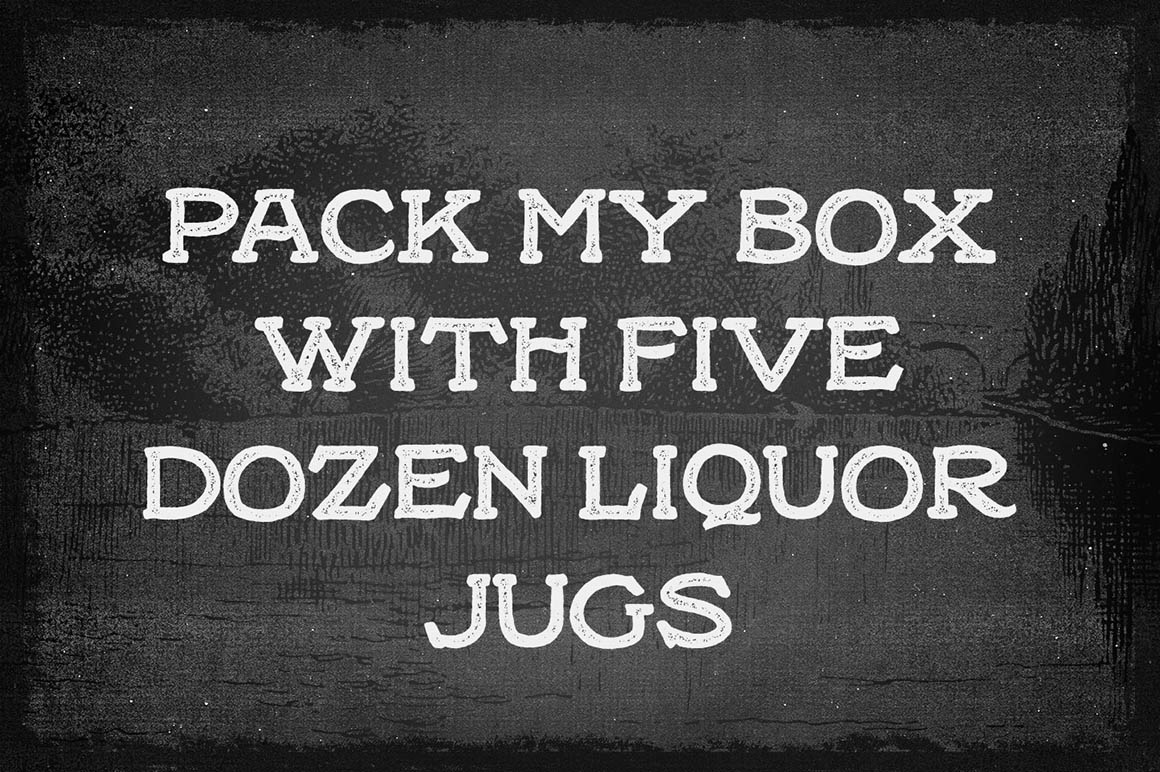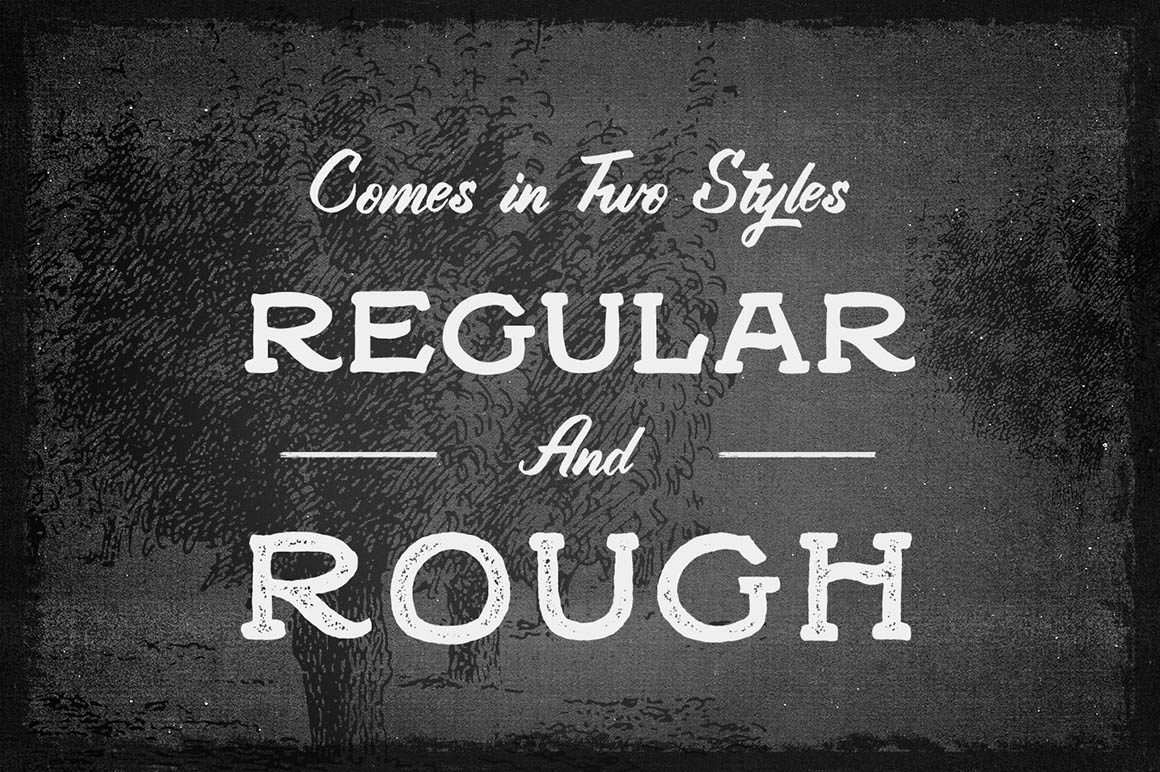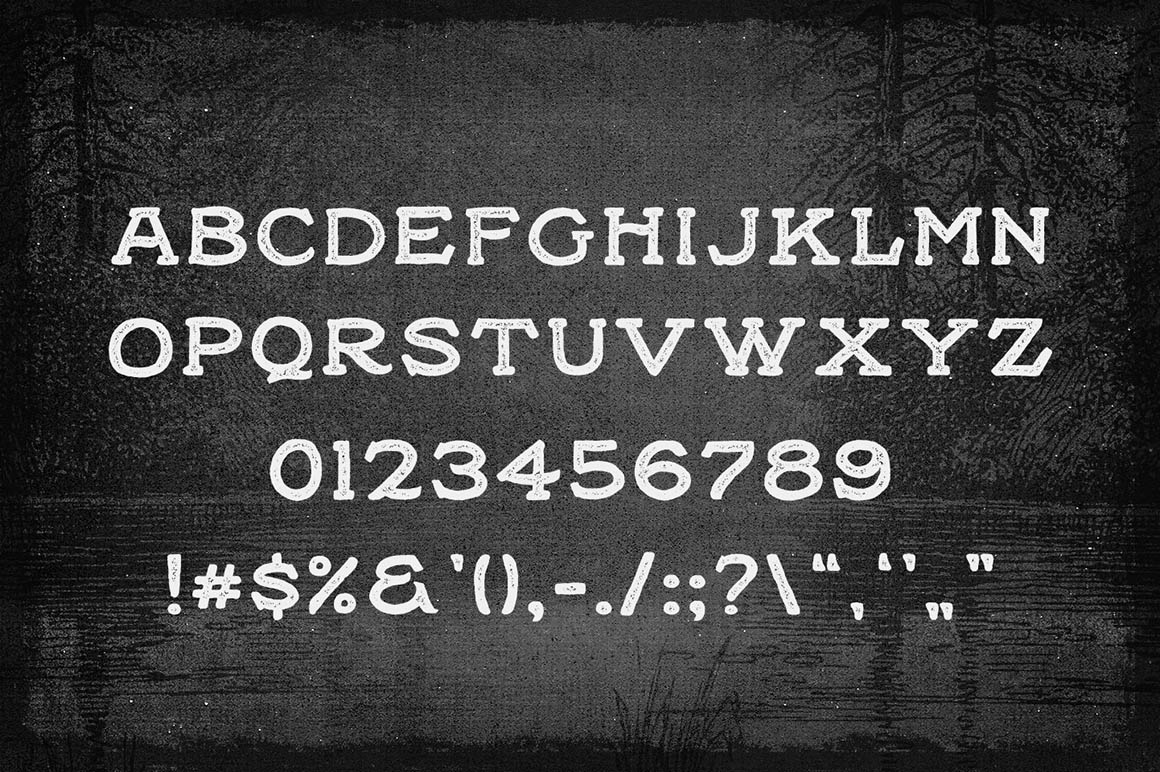
Black Willow – Free Font
This grunge or vintage style hand written serif font is from GraphicGoods. Great for your new creative projects. Download and enjoy 😉